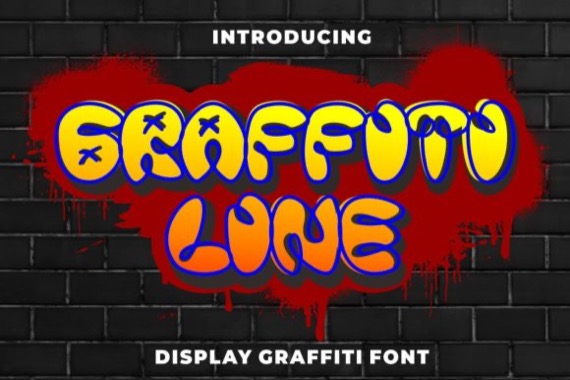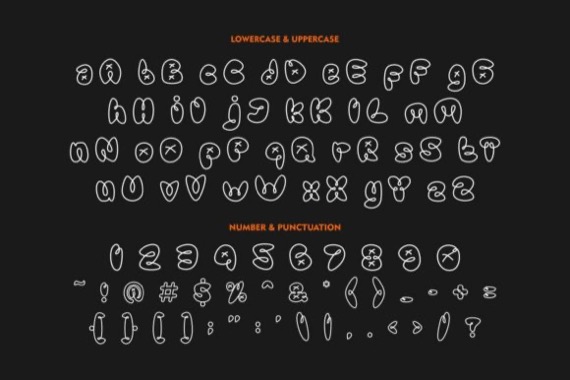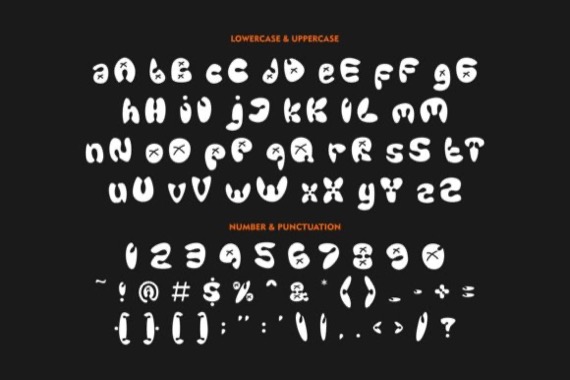
Graffiti Line is a fancy and cool Display Graffiti Style Font that was created and released by Putracetol. It’s inspired by the graffiti art on the city streets. This font will make it easier for you to make graffiti writing or designs. This font is made even cooler by the many ligatures included.
Suitable for many design projects, branding, packaging, logos, wall art, headlines, templates, banners, posters, etc.
Graffiti Line Display Font
Designer, Publisher: Putracetol